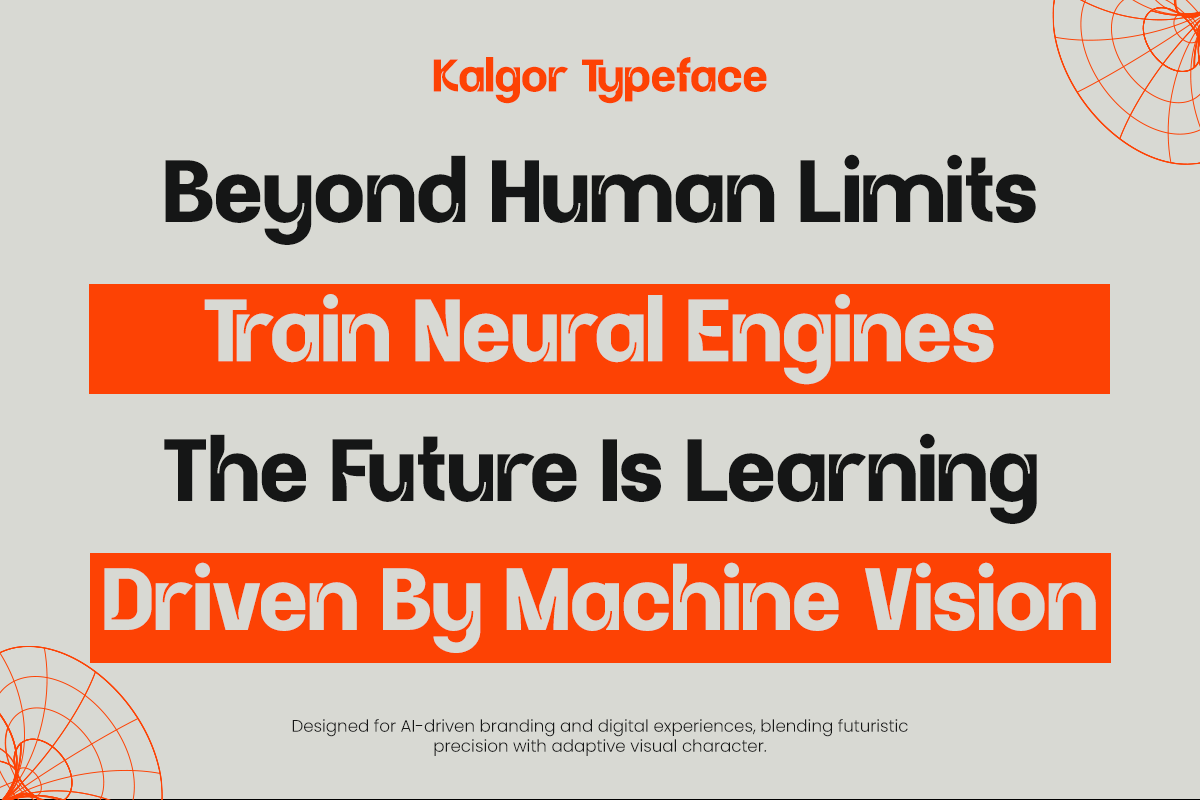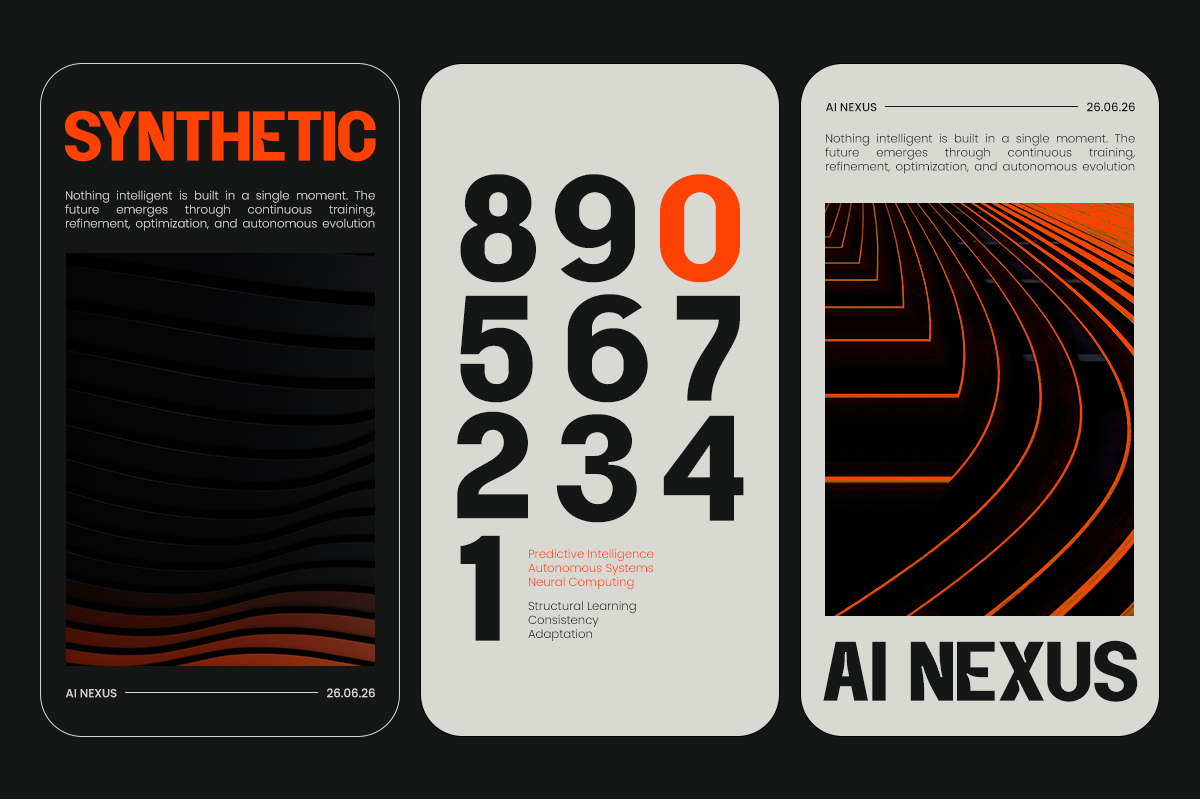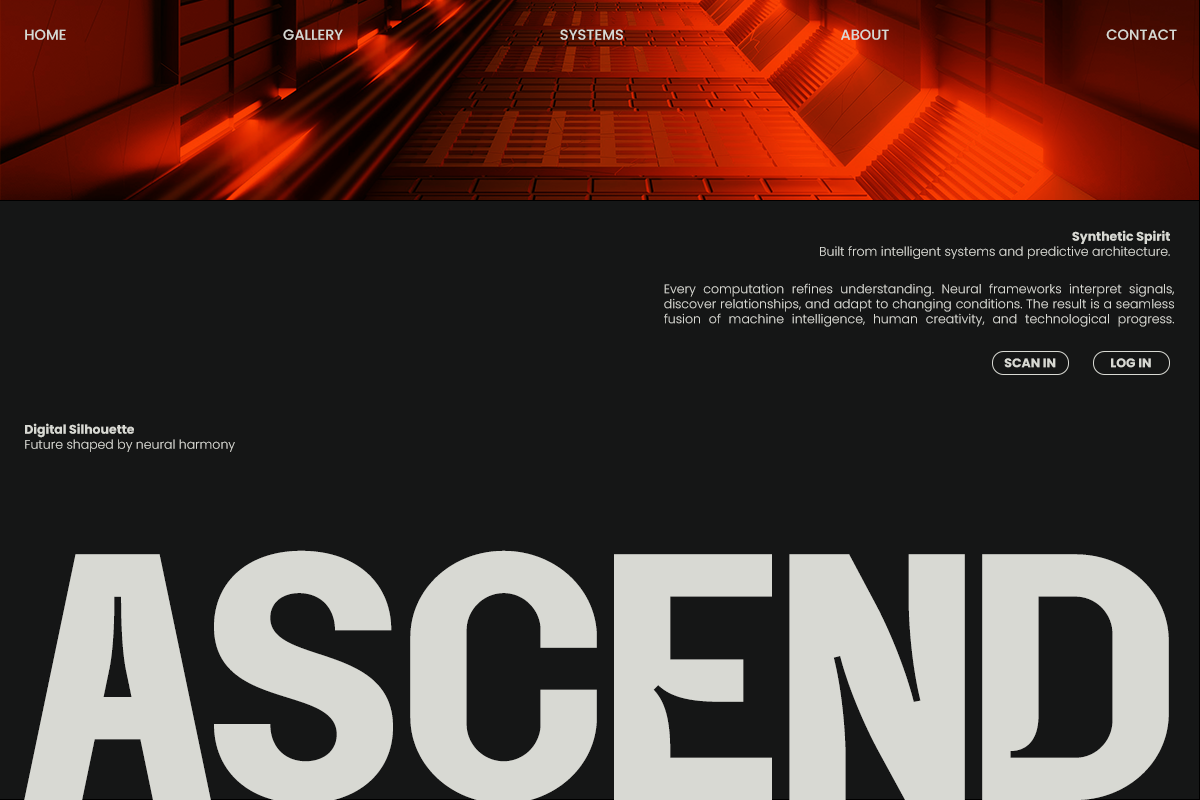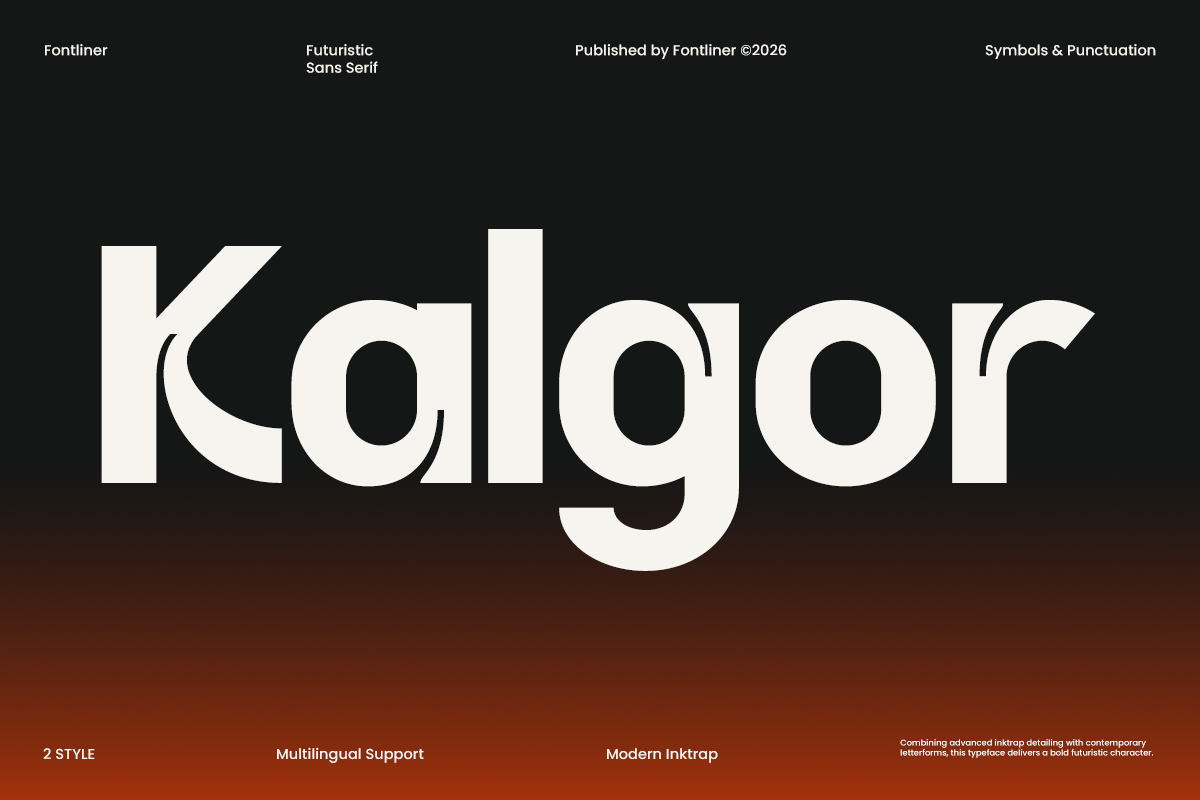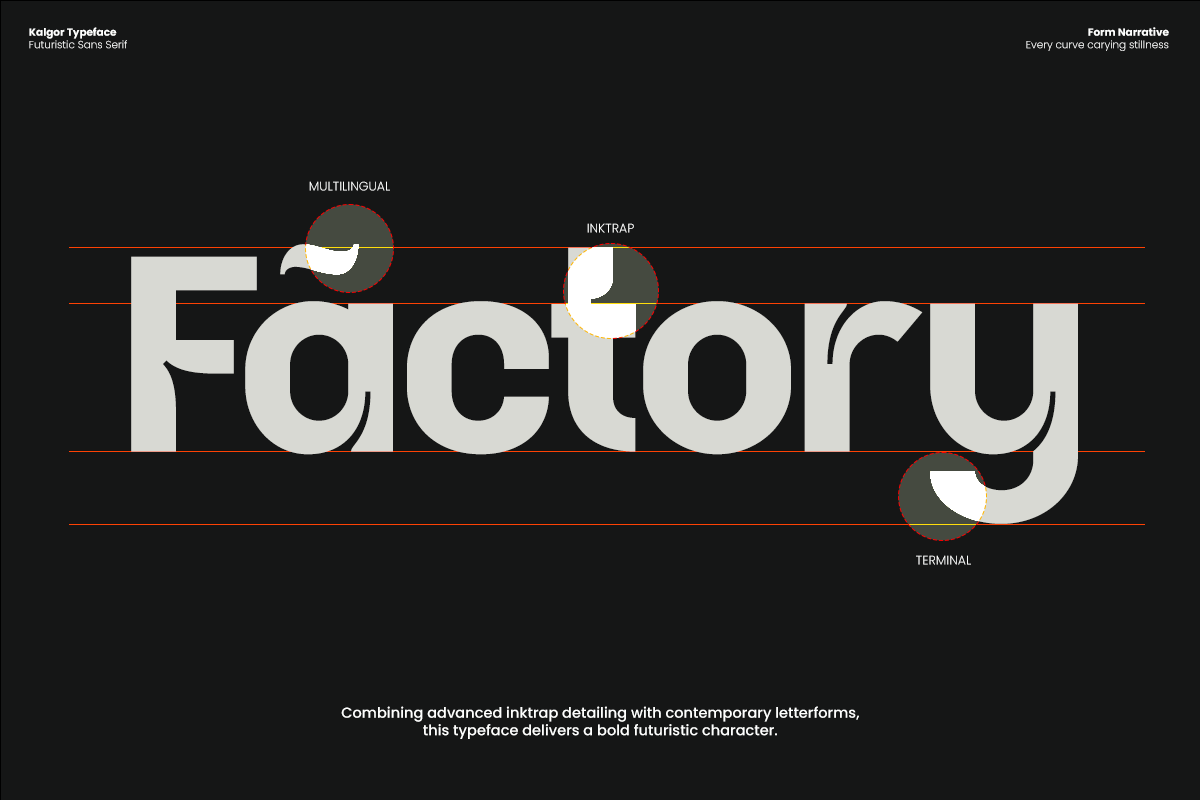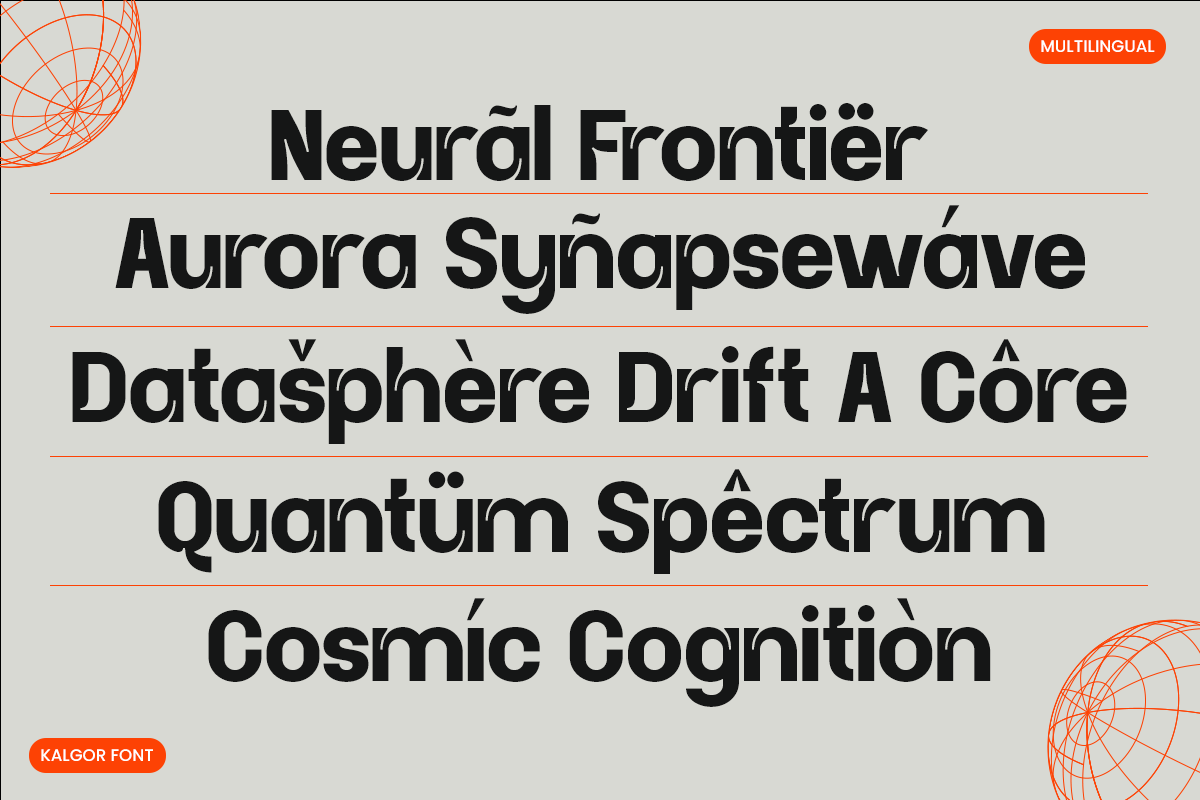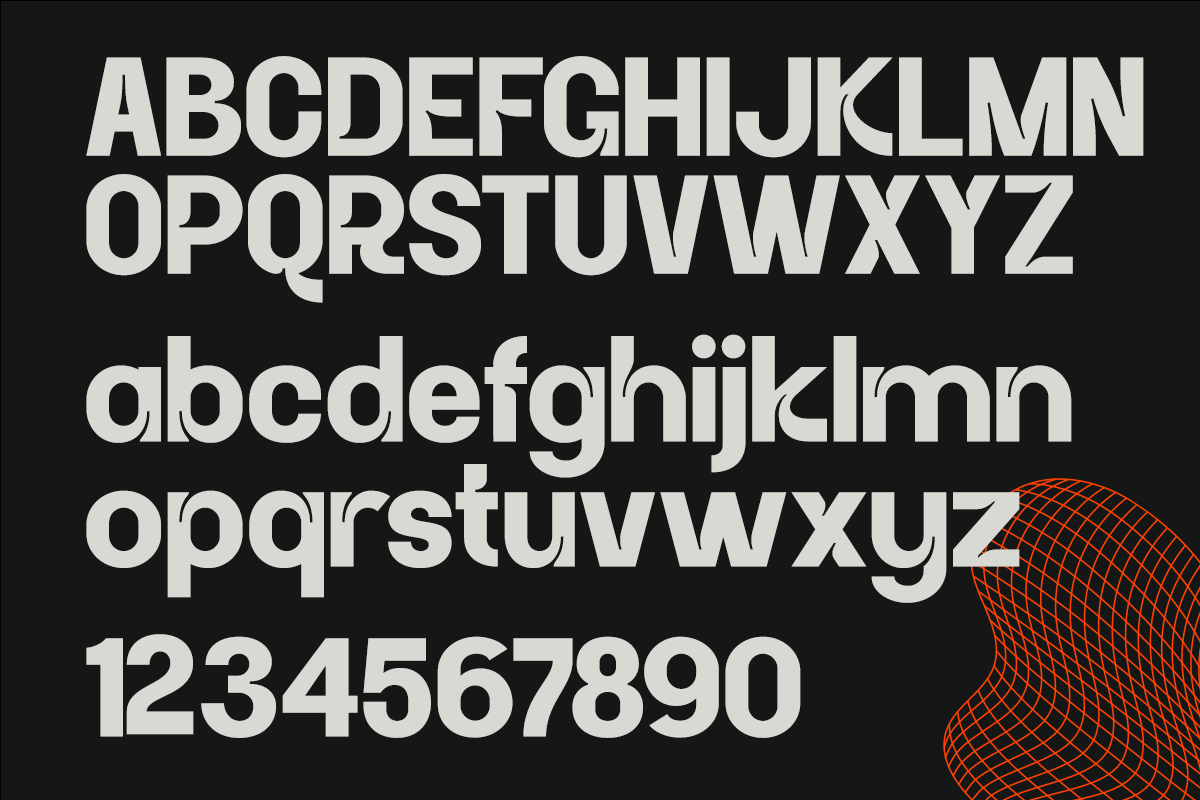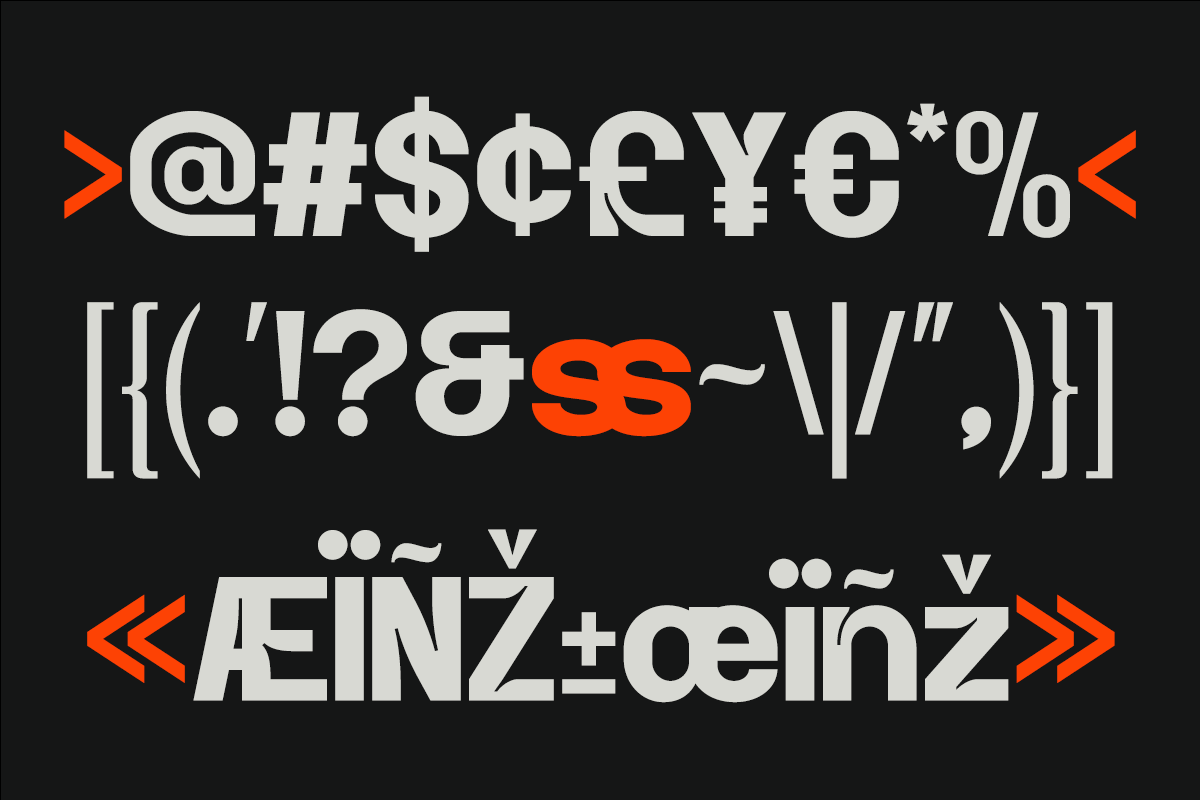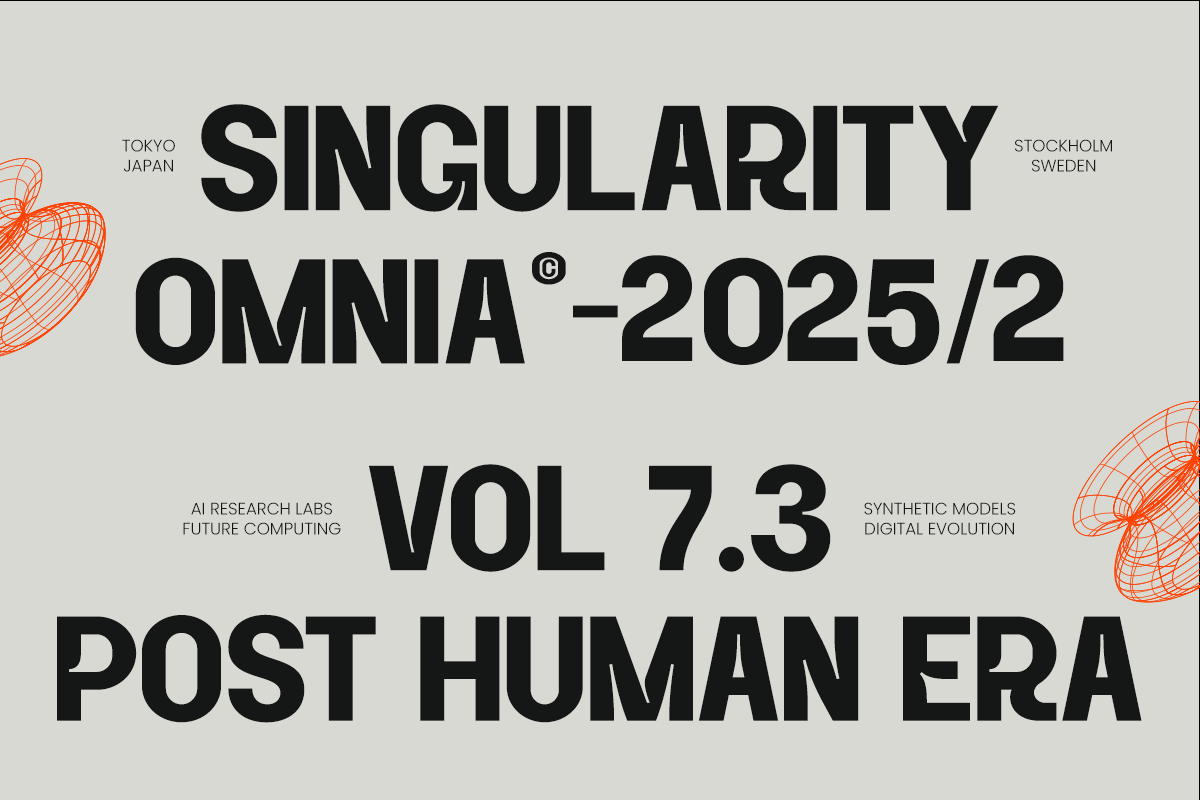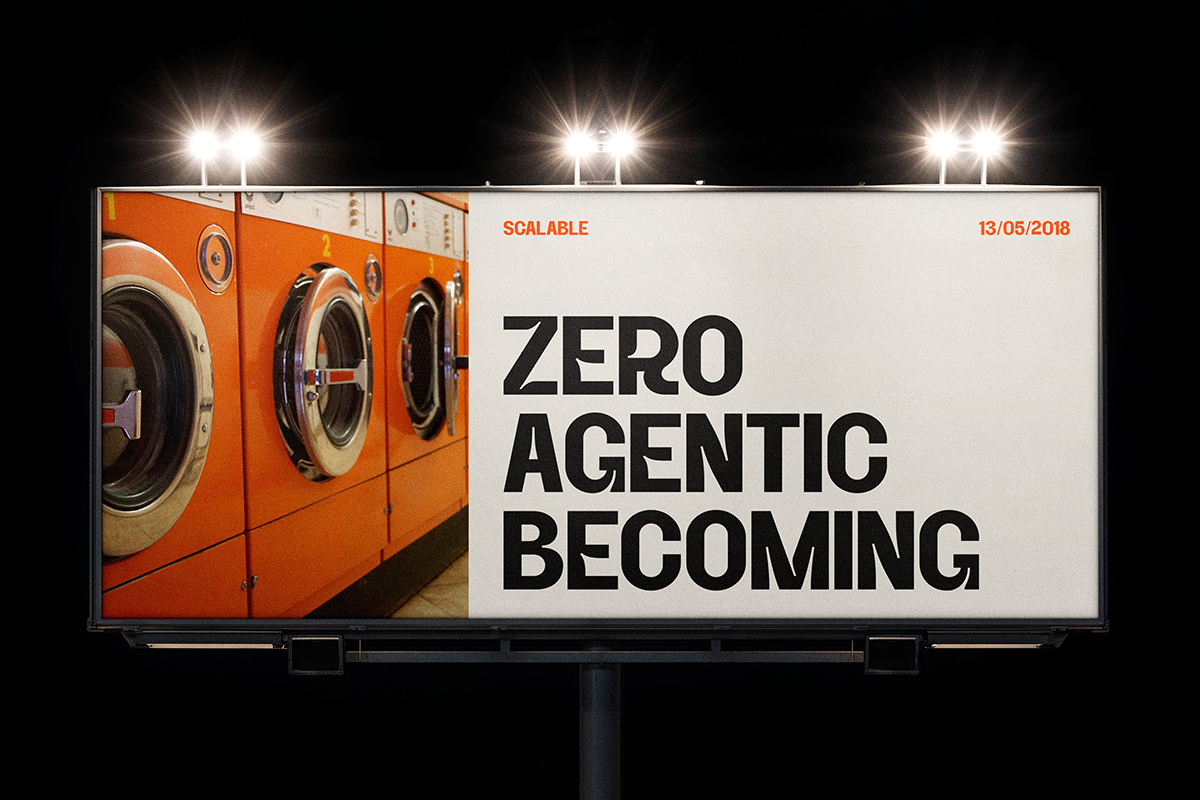
Technology Future Sans Font - Kalgor
Kalgor is a futuristic sans serif typeface designed to capture the spirit of advanced technology, artificial intelligence, and next-generation digital design. Featuring bold geometric construction, distinctive inktrap details, and a powerful visual presence, Kalgor delivers a unique balance between industrial precision and contemporary innovation. Its strong character shapes create an unmistakable futuristic identity while maintaining excellent readability across large-scale applications.
Built for designers seeking a modern techno aesthetic, Kalgor includes multilingual support and two versatile styles that adapt effortlessly to both experimental and commercial projects. The carefully crafted letterforms make it ideal for AI branding, technology startups, gaming interfaces, cyberpunk visuals, sci-fi posters, digital products, esports identities, and cutting-edge editorial layouts.
Kalgor perfect for futuristic logos, bold headlines, product packaging, website hero sections, motion graphics, or visionary brand systems, Kalgor provides the visual impact needed to stand out in an increasingly digital world. With its striking inktrap-inspired details and futuristic structure, Kalgor transforms every word into a statement of innovation and progress.
Regular and Italic Style
Inktrap Style
Number, Symbol, and Punctuation
Multi Language Support